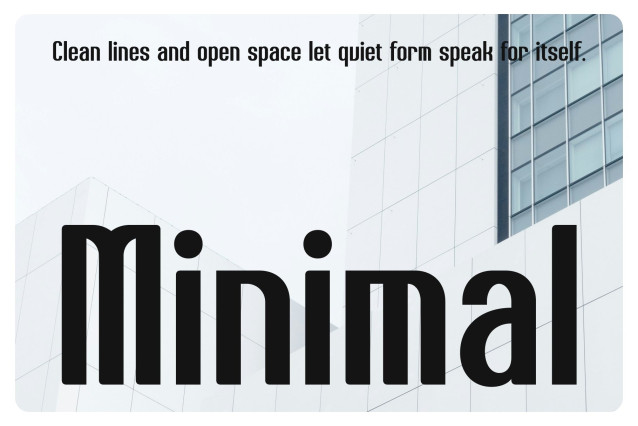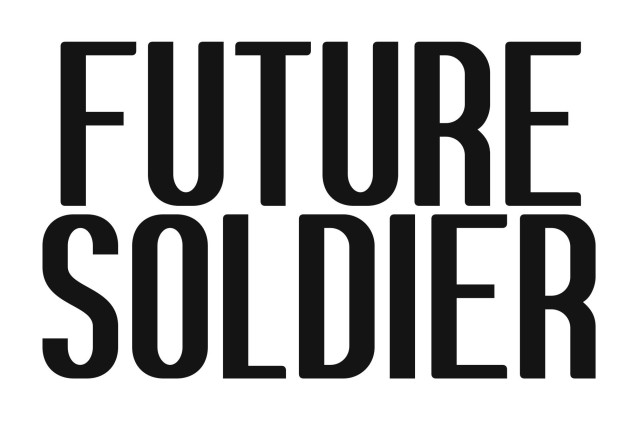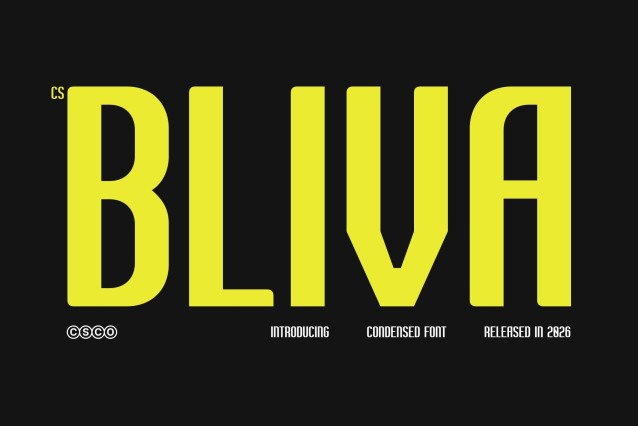
CS Bliva– Condensed Font
CS Bliva – Condensed Sans Serif Font: Where Bold Efficiency Meets Modern Clarity
Compact Design with Strong Visual Impact
This is a modern condensed sans serif font built to maximize impact within limited space. Its narrow proportions and efficient structure allow designers to present more content without compromising visual strength. Each character is crafted to stand firm and clear, making it an excellent solution for tight layouts that still demand bold expression.
Clean Construction with Confident Style
This font delivers a confident and polished appearance. The precise geometry enhances readability while maintaining a strong typographic voice. Its minimal yet assertive design ensures that every word feels sharp and easy to read even in dense compositions.